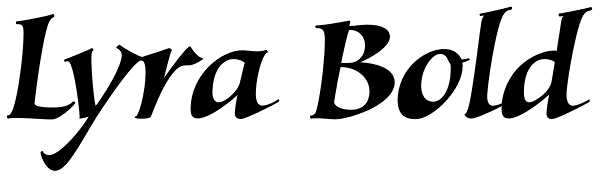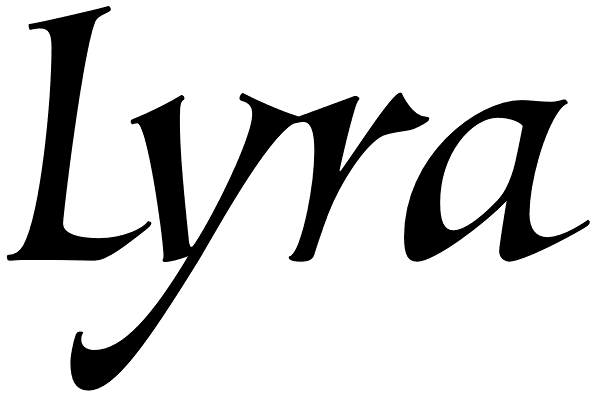
Lyra
Lyra is an Italian Renaissance script that might have developed if metal type had not broken the evolution of broad pen calligraphy. It lies in the area between the humanist bookhand and the chancery cursive, combining the fullness and articulation...